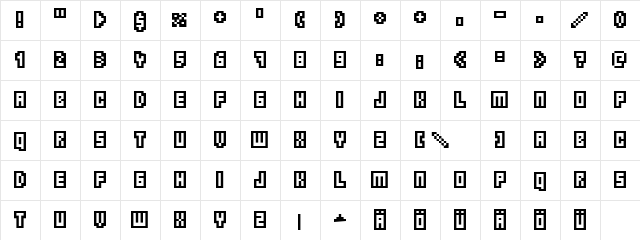
Borgnine Regular
| Designer | Marc Andr頠"Mieps" Misman |
Design Context for Borgnine Typeface
Borgnine takes a measured approach to typography — its balanced proportions and neutral character make it a reliable workhorse for both digital and print work.